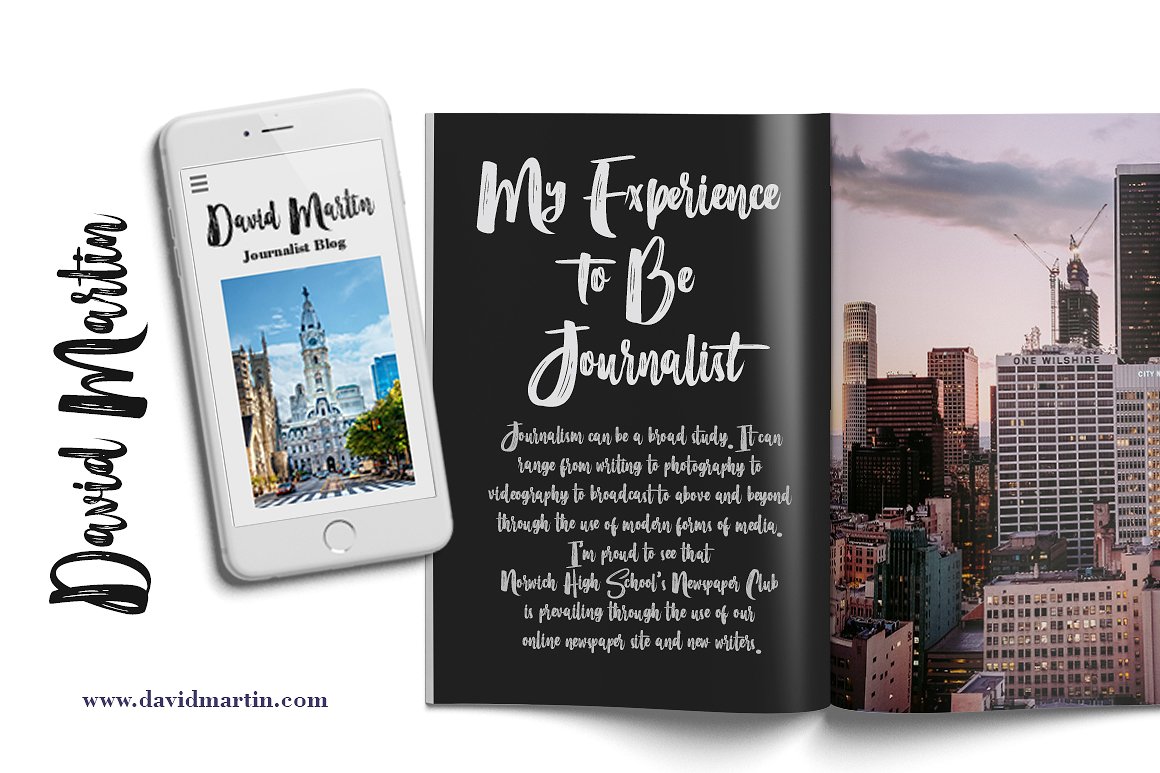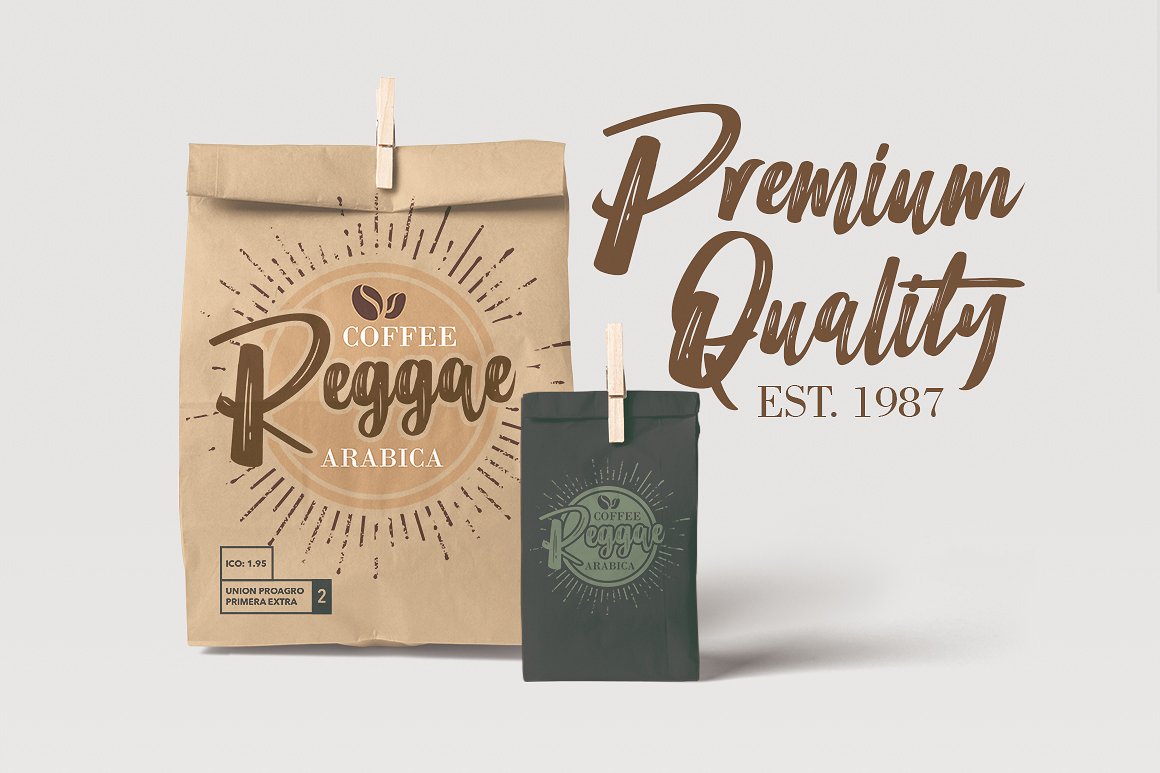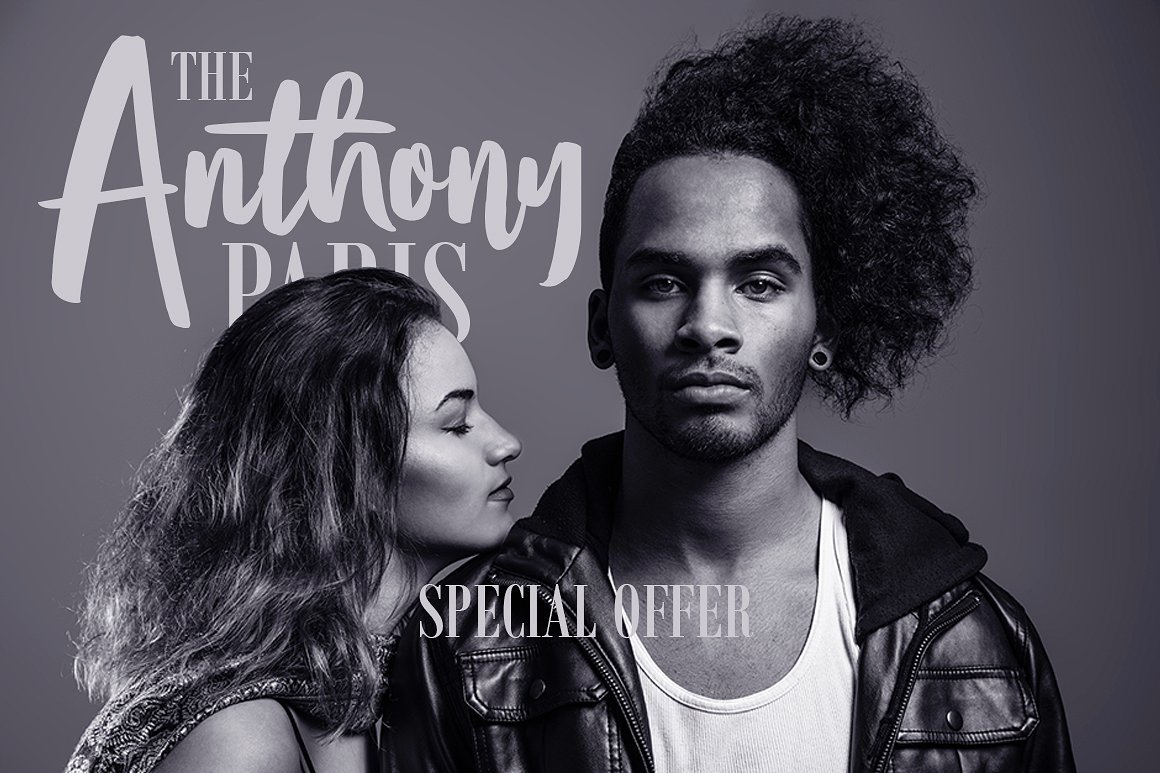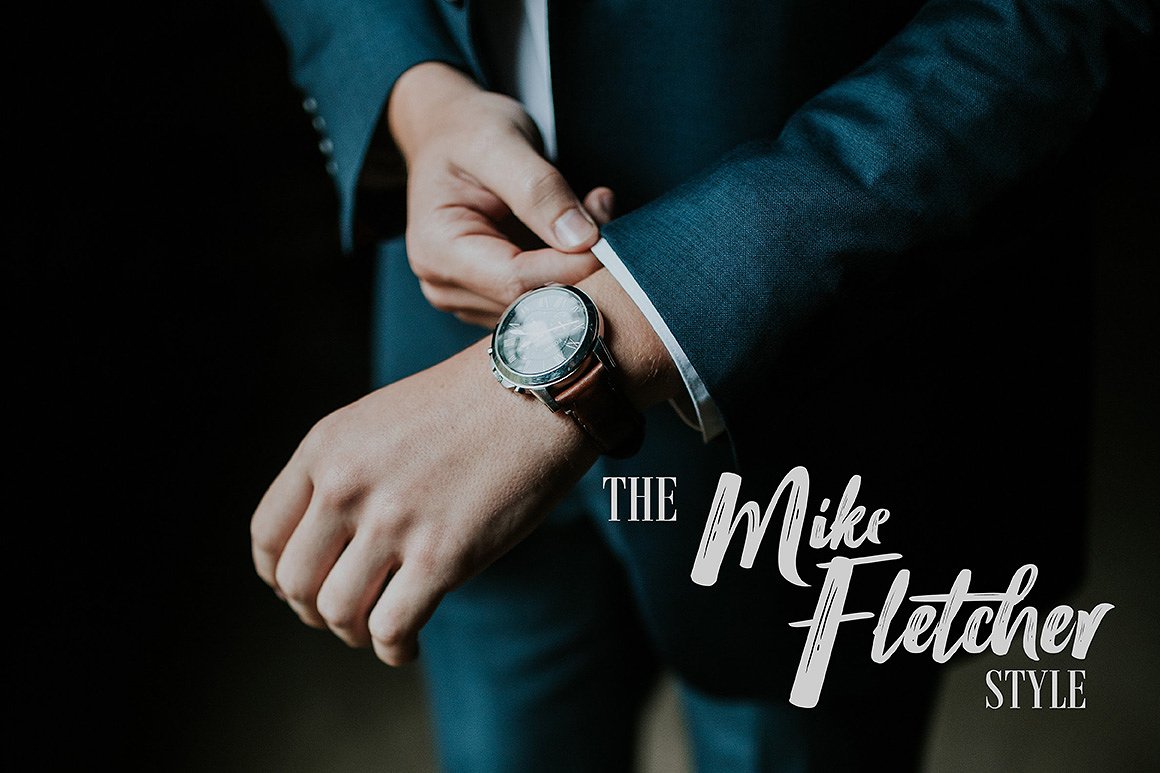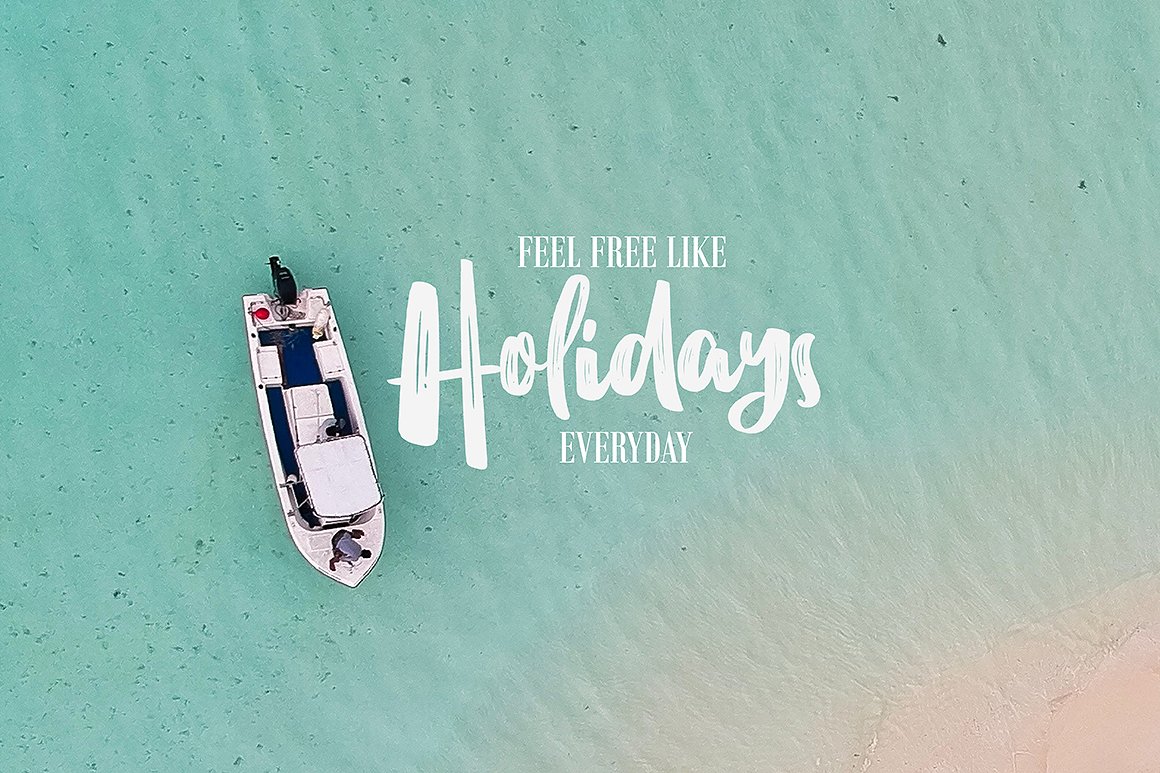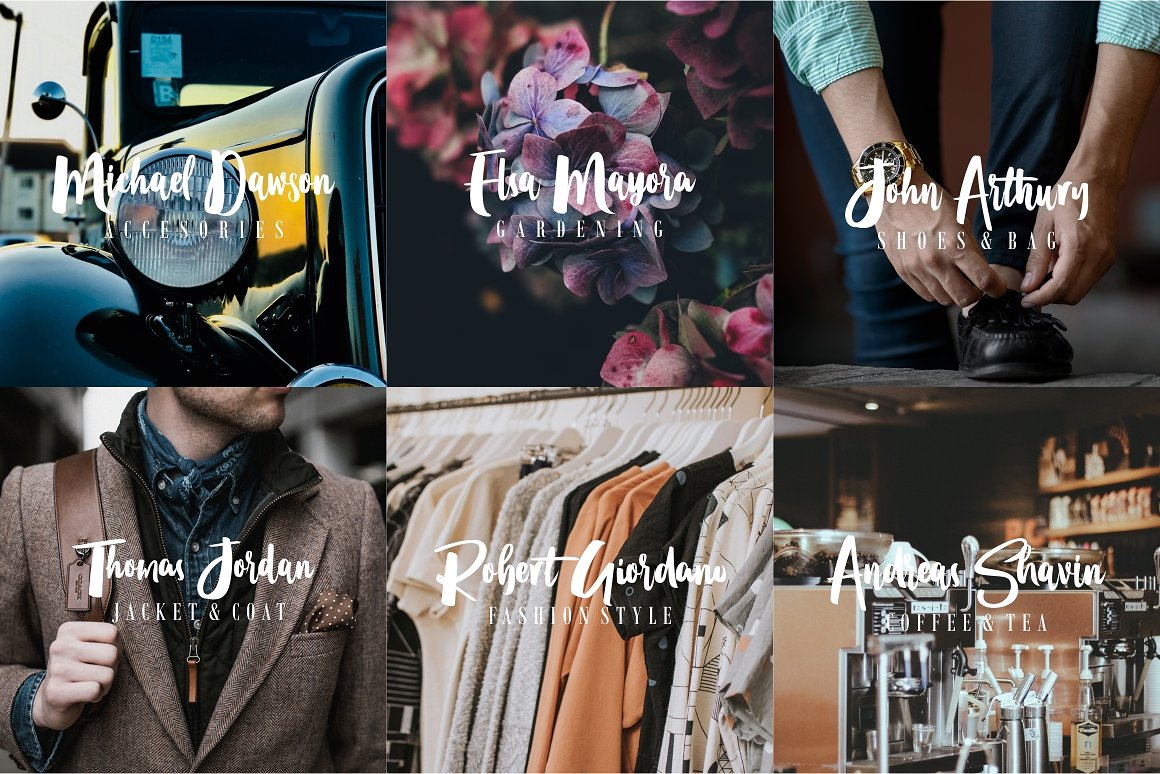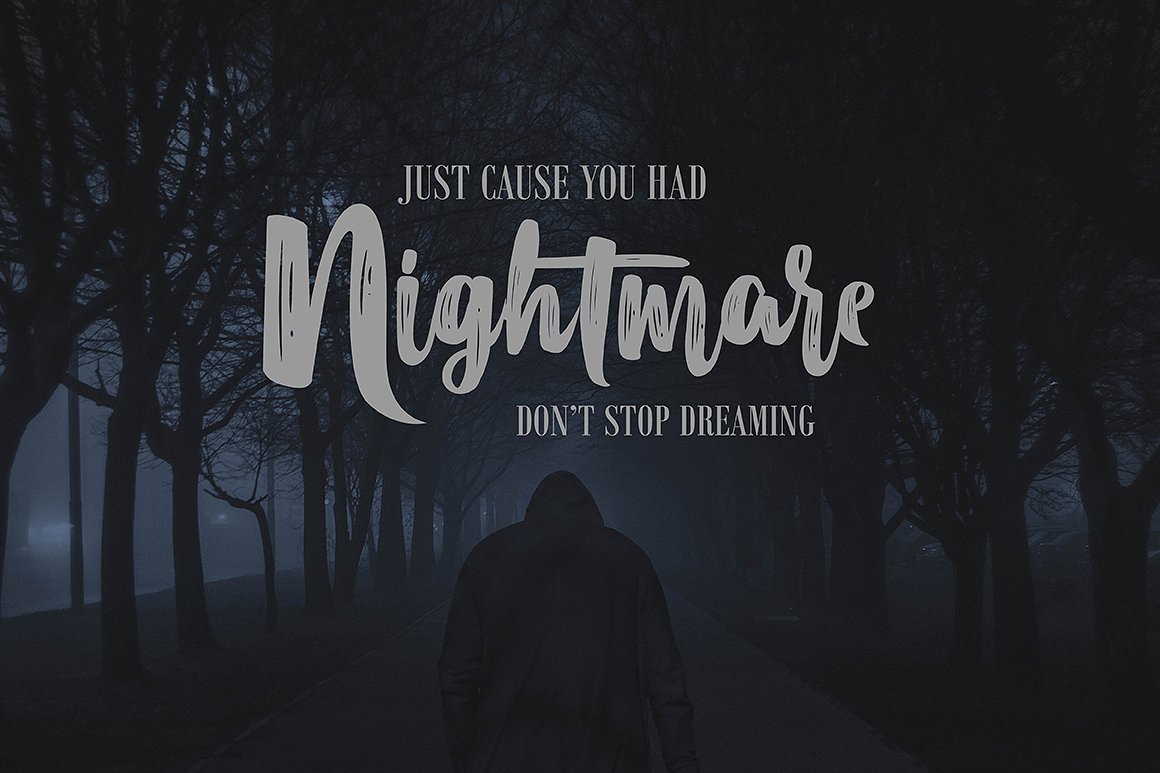
Merci Heart Font
About Merci Heart Font
Merci Heart is a gorgeous brush font created to meet your needs. With projects that need a natural, brush feel, you can use this font for the same effect but with more efficient time. This font is great for displays and comes with 3 alternative fonts so you can craft with versatility.